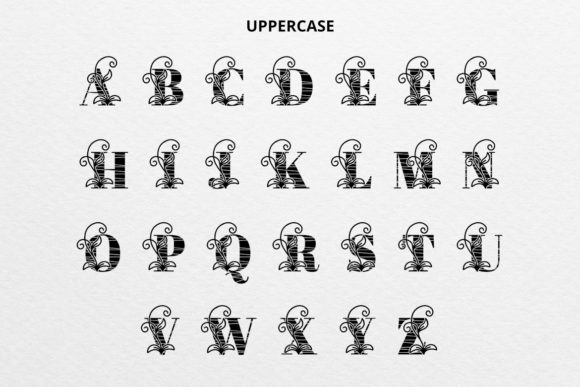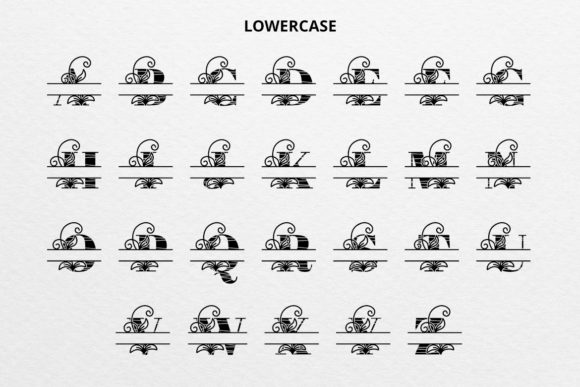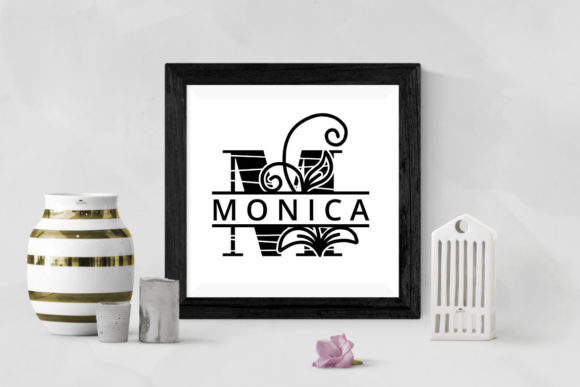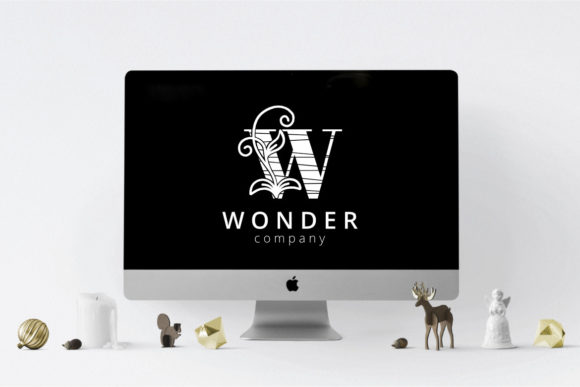
Introducing EZ Monogram Font: Elevate Your Designs with Modern Elegance
In the world of typography, a well-crafted font can make all the difference in elevating your designs from ordinary to extraordinary. If you’re a designer, crafter, or DIY enthusiast looking for a stylish and modern decorative font, look no further than EZ Monogram Font. This stunning font is perfect for creating gorgeous wedding invitations, beautiful stationery art, eye-catching social media posts, and much more.
What is EZ Monogram Font?
EZ Monogram Font is a modern, distinct, and stylish decorative font that is sure to captivate your audience. Its ravishing style is perfect for those who want to add a touch of elegance and sophistication to their designs. Whether you’re creating wedding invitations, social media graphics, or stationery art, EZ Monogram Font is the perfect choice.
Key Features of EZ Monogram Font
- Modern and Distinct Style: EZ Monogram Font boasts a unique and contemporary design that will set your creations apart from the rest.
- Highly Versatile: Use EZ Monogram Font for a wide range of design projects, from wedding invitations and stationery art to social media posts and more.
- Elegant and Sophisticated: Add a touch of luxury and refinement to your designs with EZ Monogram Font’s elegant and sophisticated style.
Uses for EZ Monogram Font
EZ Monogram Font is an incredibly versatile font that can be used for a wide range of design projects. Here are some ideas to get you started:
- Wedding Invitations: Create stunning wedding invitations that set the tone for the big day.
- Stationery Art: Design beautiful stationery art, including greeting cards, thank-you cards, and more.
- Social Media Posts: Create eye-catching social media posts that grab attention and drive engagement.
- Branding and Packaging: Use EZ Monogram Font to create a cohesive brand identity and add a touch of elegance to your packaging.
Why Choose EZ Monogram Font?
With so many fonts available, why choose EZ Monogram Font? Here are just a few reasons:
- Unique and Memorable: EZ Monogram Font is a one-of-a-kind font that will help your designs stand out from the crowd.
- High-Quality Design: EZ Monogram Font is designed with precision and attention to detail, ensuring a high-quality finish.
Tips for Using EZ Monogram Font
Here are some tips for getting the most out of EZ Monogram Font:
- Experiment with Different Sizes and Colors: Play around with different sizes and colors to find the perfect combination for your design.
- Pair with Other Fonts: EZ Monogram Font pairs well with other fonts, so don’t be afraid to experiment with different combinations.
- Use for Headlines and Titles: EZ Monogram Font is perfect for headlines and titles, adding a touch of elegance and sophistication to your designs.
| Font Name | EZ Monogram Font |
| Author | CrafterFonts |
EZ Monogram Font is a modern, distinct, and stylish decorative font that is perfect for designers, crafters, and DIY enthusiasts. With its ravishing style and highly versatile design, EZ Monogram Font is sure to elevate your designs and add a touch of elegance and sophistication. Whether you’re creating wedding invitations, stationery art, social media posts, or more, EZ Monogram Font is the perfect choice.